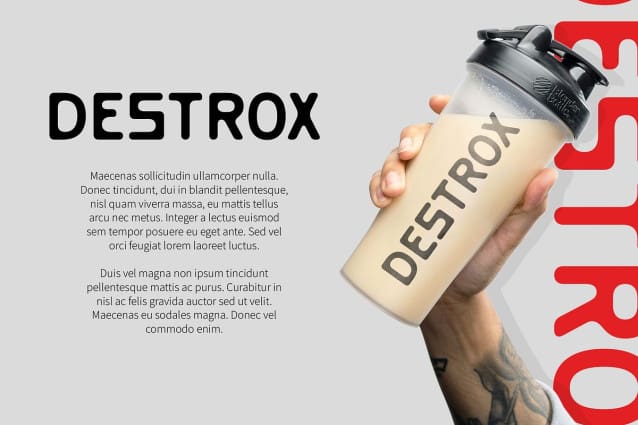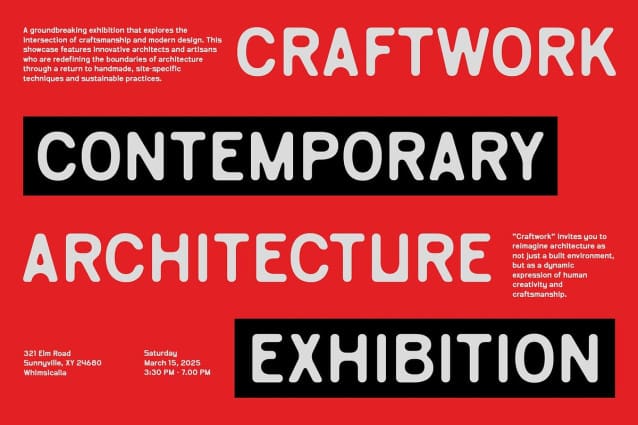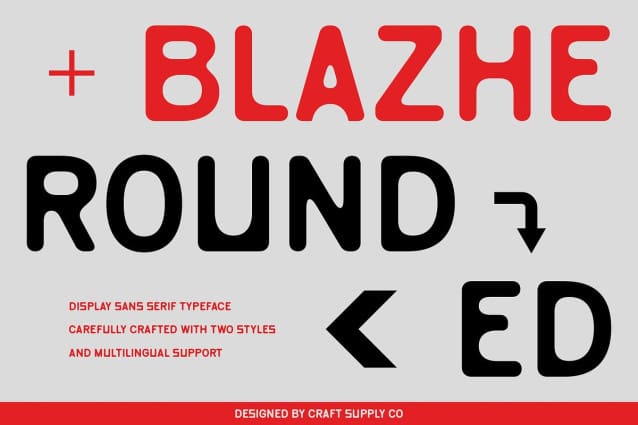
Blazhe Rounded Font
Blazhe Rounded Font is a contemporary sans serif font characterized by its grotesque shape and soft, rounded edges, resulting in a friendly and approachable impression. The gentle curves and smooth transitions in its letterforms create a welcoming aesthetic that draws in the viewer, making it perfect for brands that want to convey warmth and accessibility. Its modern design seamlessly blends functionality with style, ensuring that it stands out in any setting.
Versatile for Various Applications With its clean and minimalist design, Blazhe Rounded is ideal for a diverse range of applications, from branding and advertising to digital media and editorial layouts. Its versatility allows it to adapt effortlessly to different contexts, whether you’re crafting an engaging website, designing sleek packaging, or developing eye-catching promotional materials. The font’s straightforward yet distinctive appearance ensures that it remains legible and effective across various platforms.
Readable Characters with Unique Shapes The combination of easily readable characters and unique shapes gives Blazhe Rounded an appealing aesthetic that enhances any design project. This font excels in conveying a professional yet modern feel, making it suitable for industries ranging from tech startups to creative agencies. Its friendly design not only captures attention but also fosters a sense of trust and reliability, essential for effective communication.